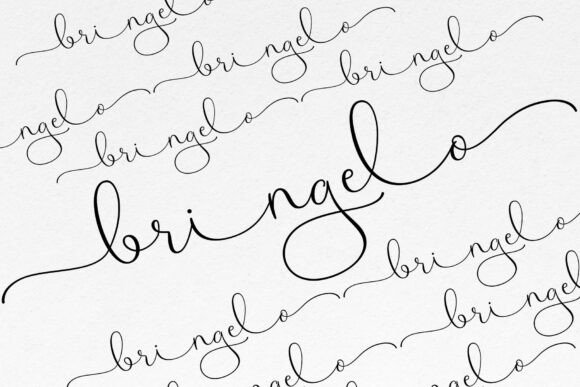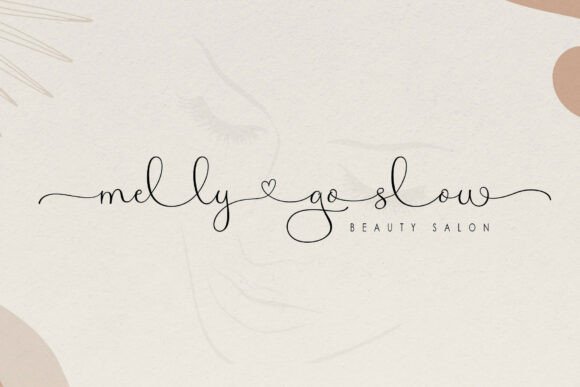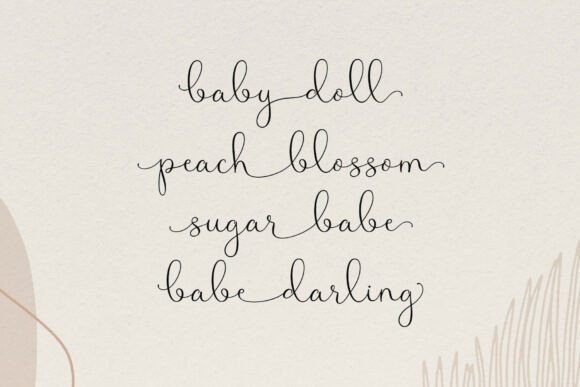
Bringelo Script Font: A Romantic Touch for Your Designs
I’ll never forget the time I was working on a wedding stationery project, and my client asked for a font that would make their love story feel like a fairytale. I scoured the internet, trying out font after font, but nothing seemed quite right. That was until I stumbled upon Bringelo, a tender, connected handwritten script that stole my heart. In this article, I’ll share my love for Bringelo, its features, and how to make the most of it in your designs.
A Personal Review of Bringelo
What I Love About Bringelo ✨
- 💕 Romantic and intimate feel: Bringelo’s fluid letterforms and soft touch evoke warmth and emotional connection, making it perfect for designs that need a personal touch.
- ✅ Balanced characters and rhythmic flow: The font’s balanced characters and rhythmic flow create a sense of harmony, making it easy to read and beautiful to look at.
While Bringelo is an amazing font, there are a few things to keep in mind:
- 🤔 Limited use in very formal designs: Bringelo’s romantic and intimate feel may not be suitable for very formal designs, such as business reports or academic papers.
The Story Behind Bringelo
Bringelo was designed by a talented type designer who wanted to create a font that would evoke warmth and emotional connection. Inspired by traditional handwritten scripts, Bringelo combines classic elegance with modern flair. The result is a font that’s both romantic and intimate, perfect for designs that need a personal touch.
Q: Is Bringelo suitable for body text?
While Bringelo is a beautiful font, it’s best suited for headings, titles, and short paragraphs. For body text, you may want to choose a font with better legibility.